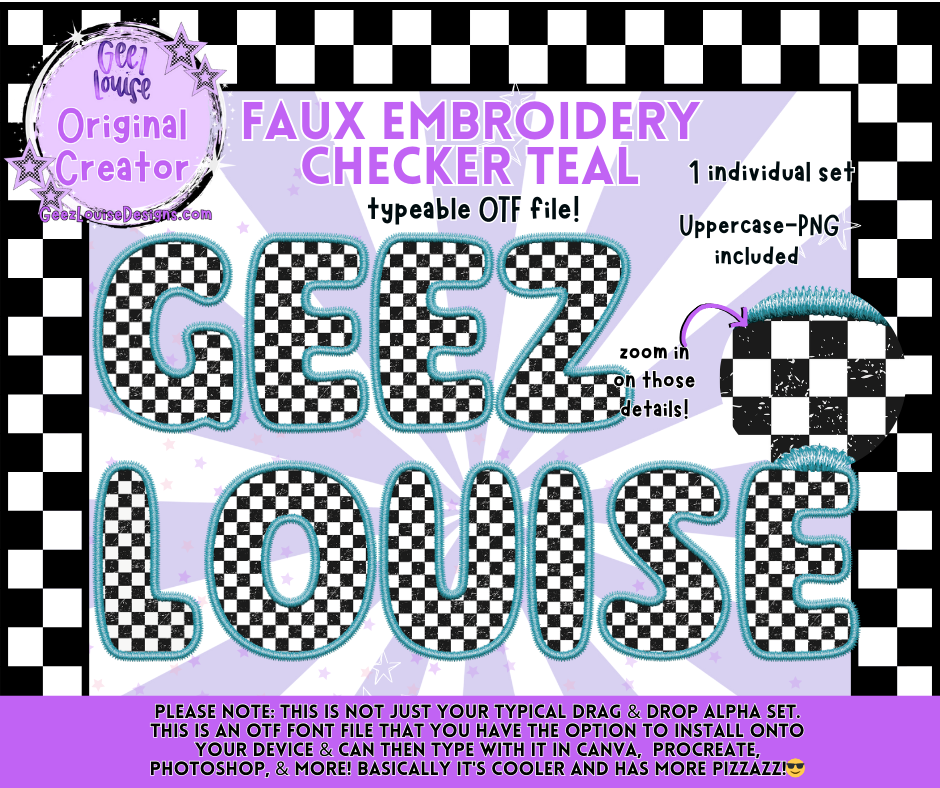
Faux Embroidery Checker Teal Alpha OTF Font + PNG | Digital Download
Bring bold style to your holiday and everyday designs with the Faux Embroidery Checker Teal Alpha OTF Font from Geez Louise! This digital font combines the classic checkerboard pattern with a stitched faux embroidery effect in teal, giving your projects a trendy, handmade vibe without the extra work.
• High-resolution, seamless letters